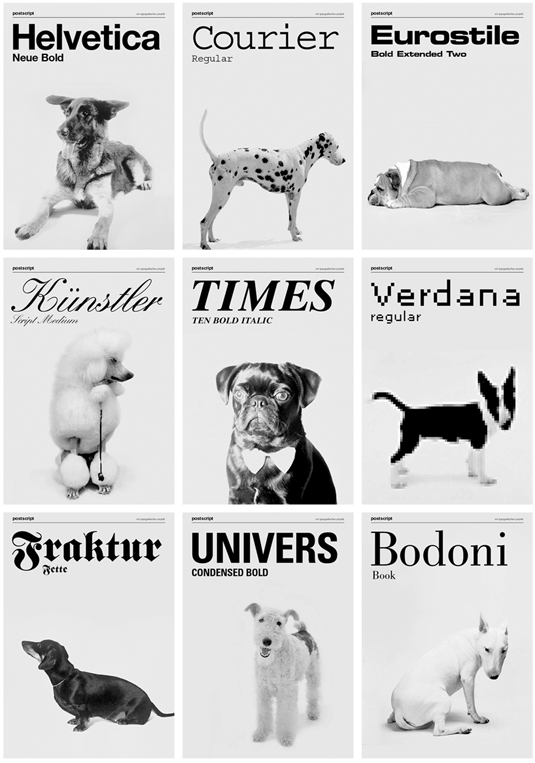
Pet project: discover the crazy world of dog fonts
Every dog has its day - and now it has its font. Take a look at these typographical terriers...
If your dog was a font, what font would he be? Type-obsessed Vienna studio Grafisches Büro offers up an answer in these playful images, which team different breeds of dog with their matching typeface. This isn't a long tail, so try and kee-pup.
Paws for a second and think - does a Dalmatian resemble the Courier typeface, or perhaps a German Shepherd shares characteristics with Helvetica? Grafisches Büro believes so, and beagle-ad that they do.
It's certainly an original bit of design thinking, so we lift our legs in salute to Grafisches Büro. Rest assured we'll be bark with more inspirational examples of typography soon...